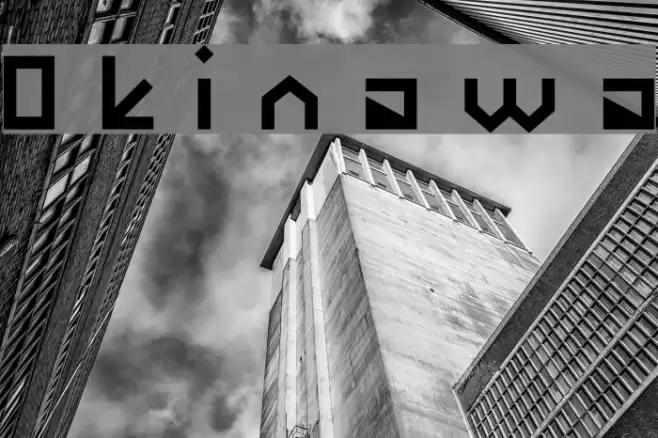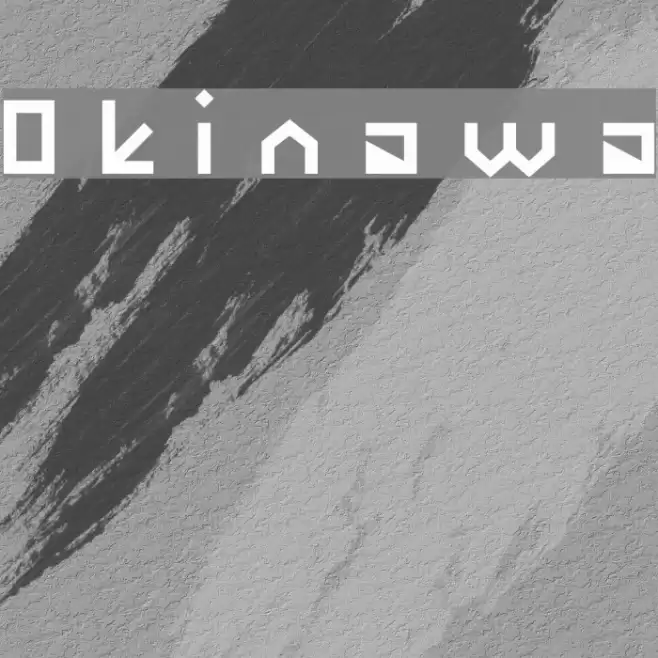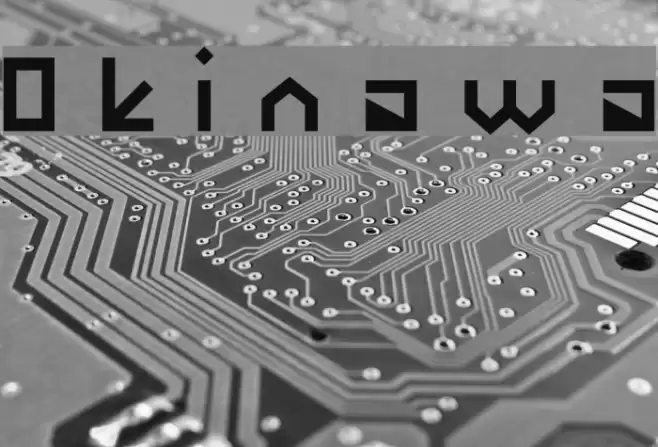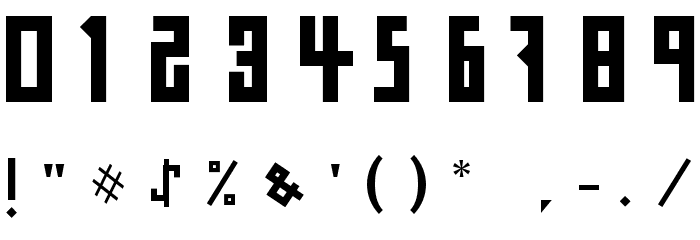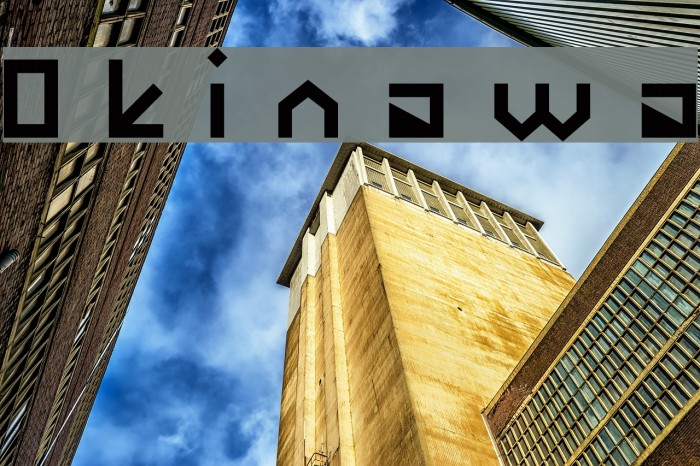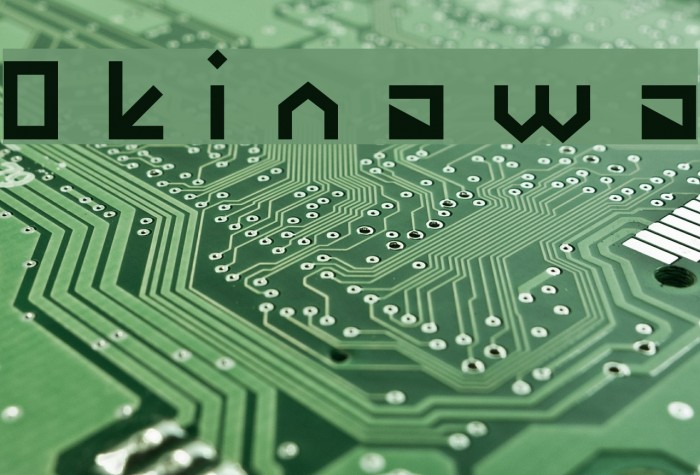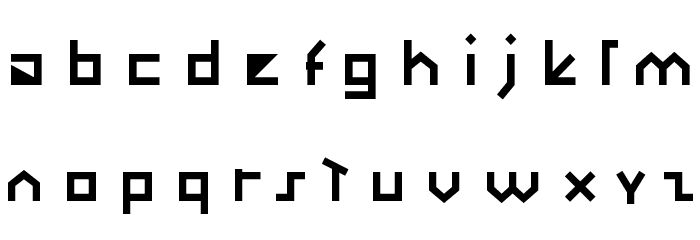
Okinawa Font
Okinawa Description
This font features a bold, geometric design with a modern and futuristic aesthetic. The characters are constructed with sharp angles and straight lines, giving them a distinct, edgy appearance. The uppercase letters are particularly striking, with a blocky, almost architectural feel. The lowercase letters maintain the same geometric style, ensuring consistency across the typeface. Numbers are bold and prominent, making them ideal for attention-grabbing displays. Special characters are designed to match the overall angular theme, providing a cohesive look throughout. This font is perfect for projects that require a modern, cutting-edge vibe.
A bold, geometric font with a modern, futuristic style from Futuristic fonts.
- Proposed Projects: Ideal for tech branding, futuristic posters, video game titles, and modern advertising.